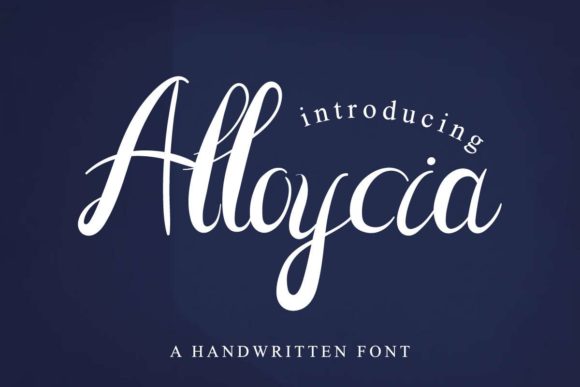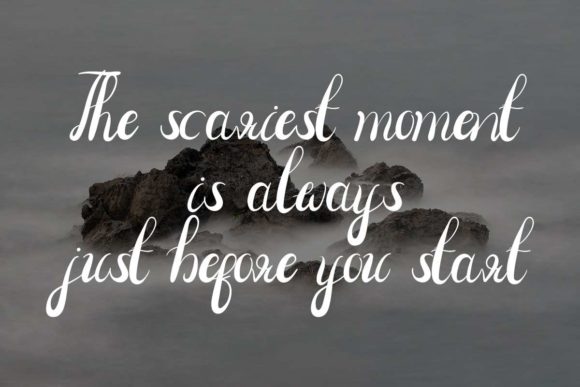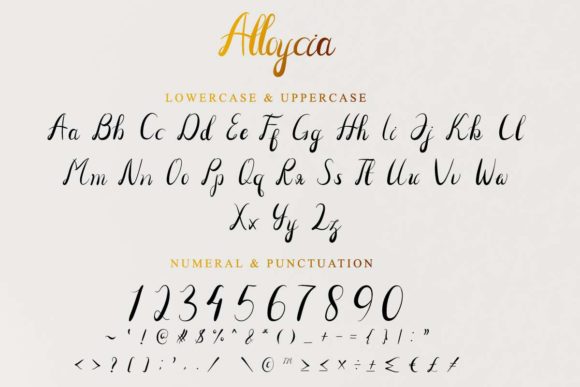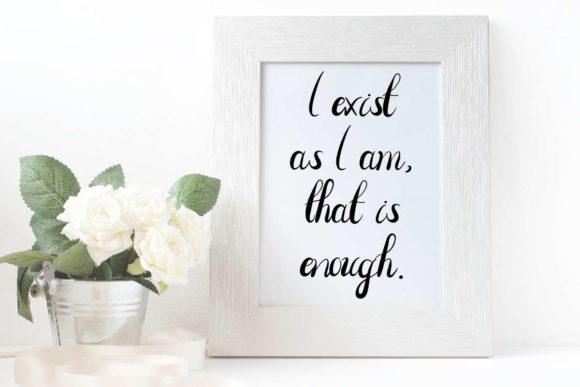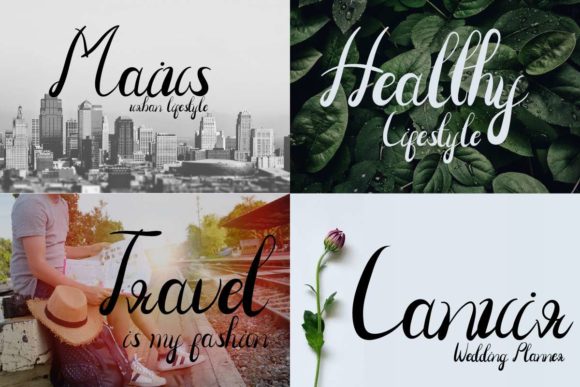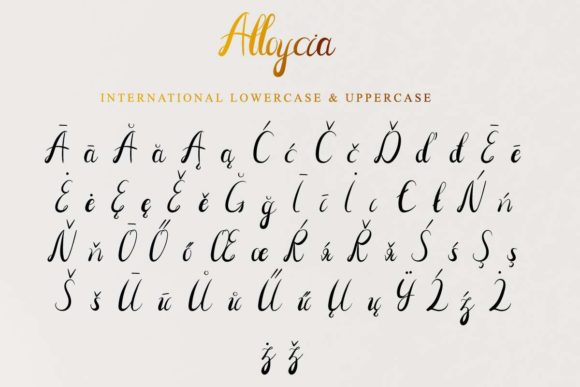
Introducing Alloycia Font: The Cute and Casual Handwritten Font for Creative Projects
Are you a designer, crafter, or DIY enthusiast looking for a font that can add a personal touch to your creative projects? Look no further than Alloycia Font, a beautiful and versatile handwritten font that is sure to delight. With its incredibly friendly feel and amazing ligatures, Alloycia is the perfect choice for anyone looking to turn their creative ideas into true works of art.
What Makes Alloycia Font So Special?
Alloycia Font is a cute and casual handwritten font that is designed to make your creative projects stand out. Its friendly feel and versatile design make it perfect for a wide range of applications, from Instagram posts and stories to calligraphy scripts and DIY projects. Whether you’re a professional designer or a crafty hobbyist, Alloycia Font is sure to inspire your creativity and help you bring your ideas to life.
Amazing Ligatures for a Unique Look
One of the standout features of Alloycia Font is its amazing ligatures. Ligatures are special characters that combine two or more letters into a single glyph, creating a unique and beautiful effect. With Alloycia Font, you can add a touch of elegance and sophistication to your creative projects, making them truly one-of-a-kind. Whether you’re creating a handmade card, a decorative sign, or a social media post, Alloycia’s ligatures are sure to impress.
Perfect for Instagram and Social Media
In today’s digital age, social media is an essential part of any creative project. With Alloycia Font, you can create stunning Instagram posts and stories that will grab the attention of your followers. Its cute and casual design makes it perfect for a wide range of applications, from fashion and beauty to food and travel. Whether you’re a social media influencer, a small business owner, or just someone who loves to share their creativity online, Alloycia Font is the perfect choice.
Endless DIY Possibilities
Alloycia Font is not just limited to digital applications. Its beautiful handwritten design makes it perfect for a wide range of DIY projects, from handmade cards and invitations to decorative signs and wall art. Whether you’re a seasoned crafter or just starting out, Alloycia Font is sure to inspire your creativity and help you create something truly special.
Why Choose Alloycia Font?
So why choose Alloycia Font for your creative projects? Here are just a few reasons:
- Cute and casual design: Alloycia Font has a friendly and approachable feel that is perfect for a wide range of applications.
- Amazing ligatures: Add a touch of elegance and sophistication to your creative projects with Alloycia’s beautiful ligatures.
- Versatile: Use Alloycia Font for everything from Instagram posts and stories to calligraphy scripts and DIY projects.
Get Creative with Alloycia Font